- SandollCloud ranks high in font activation rates, with numerous multilingual fonts such as Japanese and Latin fonts.
- Sandoll collaborates with the Netherlands-based Typotheque on the multilingual font project "November," winning the Red Dot Design Award in 2023.
- Efforts will be made to expand language support and enhance platform functionality to establish itself as a global creator content platform.
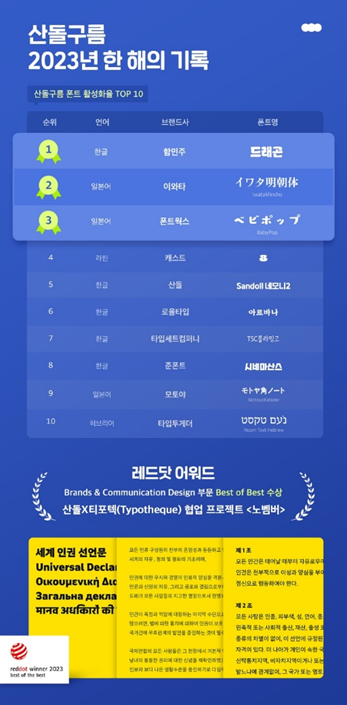
Sandoll Co., Ltd. (CEO Young-ho Yun) unveiled the "2023 Records of SandollCloud," analyzing a year's worth of usage data for its font platform, SandollCloud, on the 10th.
The analysis determined the top 10 font activation rates on SandollCloud based on the most actively used font data by SandollCloud customers during the past year.
The results revealed SandollCloud's presence as a global font platform in the domestic market. The increasing demand for multilingual fonts led to the prominence of Japanese and Latin fonts in SandollCloud's top font activation rates for 2023.
The most activated font on SandollCloud was the Korean font "Dragon" by designer Min-joo Ham. With a design resembling the form of a dragon, the "Dragon" font attracted popularity among designers with its dynamic design. The font's powerful design is expected to maintain steady popularity even in the auspicious year of the Blue Dragon in 2024.
Following closely behind were Japanese and Latin fonts, respectively, with ▲2nd place occupied by the Japanese font "Iwata Mincho" by Iwata, ▲3rd place by the Japanese font "BabyPop" by Fontsworks, and ▲4th place by the Latin font "8" by Cast.
The presence of multiple multilingual fonts in the top ranks indicates an increase in creators aiming to produce global content through multilingual fonts available on SandollCloud due to the popularity of K-content.
Furthermore, the usage of special language fonts within multilingual fonts garnered attention. The inclusion of Typotheque's Hebrew font "Noam Text Hebrew" in the 10th place is notable.
This indicates a growing demand for creating content in languages such as Arabic and Vietnamese, which have relatively scarce fonts compared to more commonly used fonts like Latin and Japanese, leading to their inclusion on SandollCloud.
In reality, SandollCloud offers fonts in various language groups, including Arabic, Vietnamese, Devanagari, Bengali, and Hebrew, without restrictions on usage, enabling diverse creations regardless of purpose.
Additionally, SandollCloud disclosed its award history through "The Records of SandollCloud 2023." The collaborative global font project "November" by Sandoll and the Netherlands-based type foundry Typotheque was selected as the Best of Best in the Brands & Communication Design category at the 2023 Red Dot Design Awards. The Best of the Best award from Red Dot is presented to the most outstanding and excellent works in design concepts.
The "November" project is the world's first multilingual font supporting hundreds of languages used by over 90% of the world's population, collaborating with 60 designers worldwide. "November" is provided by Sandoll as "SD November," supporting various languages such as Korean, Devanagari, Latin, Latin Extended, Greek, Greek Extended, Cyrillic, and Cyrillic Extended.